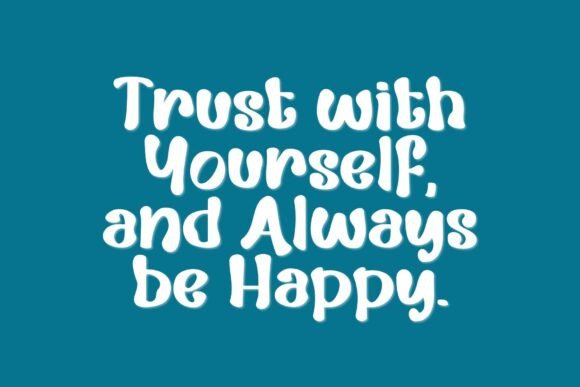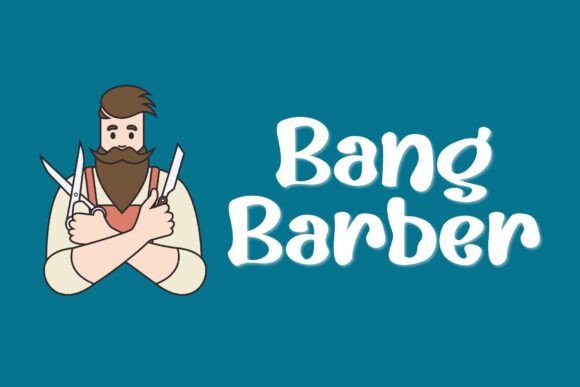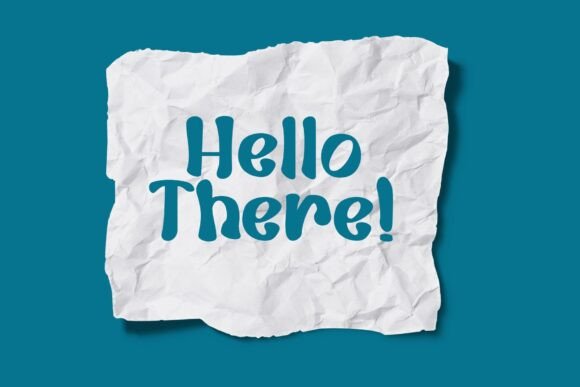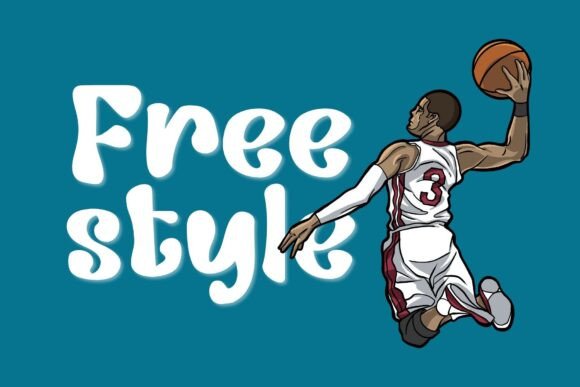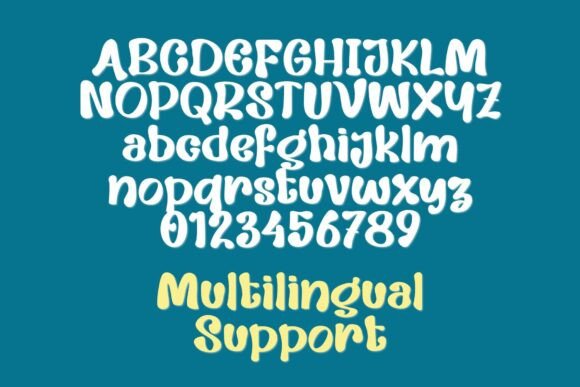
Introducing Efista Font: Elevate Your Display Text with Elegance
In the world of typography, a font can make all the difference in capturing the essence of a message. For designers and crafters seeking to add a touch of sophistication to their display text, Efista Font emerges as a captivating, ornamental typeface that embodies the perfect balance between classic and contemporary design. With its decorative flair and irresistible charm, Efista is poised to leave a distinctive mark on your striking visuals.
The Allure of Efista Font
Efista Font is more than just a typeface; it’s an artistic statement. Its design is meticulously crafted to exude elegance, making it an ideal choice for projects that demand a high level of sophistication. Whether you’re working on a luxury brand logo, an elegant wedding invitation, or a high-end product advertisement, Efista brings a level of refinement that is hard to match.
Key Features of Efista Font
- Unique Decorative Design: Efista boasts a decorative design that sets it apart from more traditional typefaces. Its unique flair ensures that your text doesn’t just convey a message but does so with style and grace.
- Balanced Style: What makes Efista truly stand out is its superb balance between classic elegance and contemporary chic. This balance allows it to be versatile, fitting into a wide range of design contexts.
- Mesmerizing Beauty: The font’s mesmerizing beauty lies in its ability to transform ordinary text into a visual masterpiece. Its ornamental details captivate the eye, making any display text instantly more engaging.
- Perfect for Artistic Endeavors: For designers and crafters looking for a font that can elevate their artistic projects, Efista is a perfect choice. Its stylish and elegant design ensures that your work stands out.
Applications of Efista Font
Efista’s versatility means it can be used in a variety of applications, each benefiting from its elegant and decorative design:
- Branding and Logos: For businesses aiming to convey luxury, sophistication, and elegance, Efista can be a valuable asset in creating a brand identity.
- Wedding and Event Invitations: The font’s classic yet contemporary feel makes it perfect for wedding invitations, event posters, and other ceremonial texts.
- Advertising and Marketing: Efista can add a touch of class to any advertising material, from billboards to digital ads, ensuring your message is delivered with style.
- Packaging Design: For products that wish to stand out on the shelves with a premium feel, Efista can be used to create eye-catching packaging.
Tips for Using Efista Font Effectively
Efista Font is a remarkable addition to the world of typography, offering designers and crafters a tool to add elegance and charm to their display text. Its unique blend of classic and contemporary design elements makes it versatile and highly effective for a wide range of projects. By incorporating Efista into your design arsenal, you’re not just choosing a font; you’re opting for a statement piece that can elevate your visuals to new heights of sophistication and beauty.